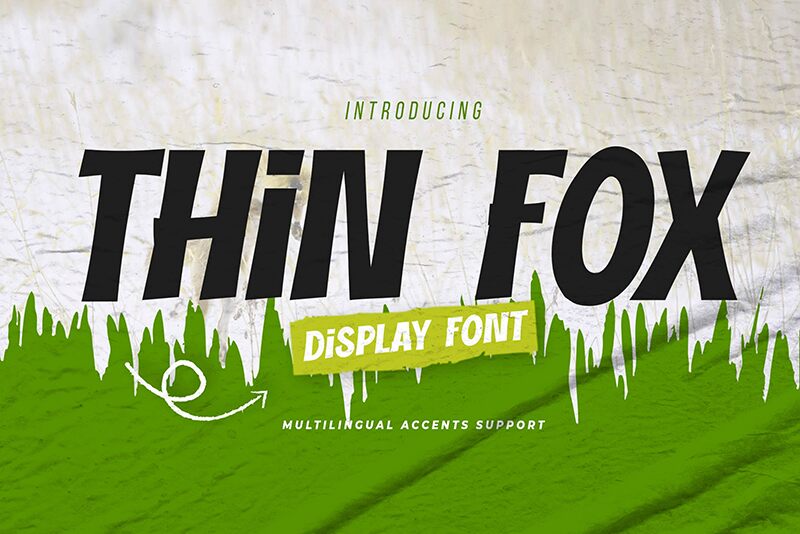
Thin Fox
Thin Fox, a bold and dynamic creation by Gassstype, stands out in the realm of display fonts with its comic style flair. Its condensed width commands attention, making it an excellent choice for headlines that need to make an impact without consuming too much space. The playful yet confident strokes of Thin Fox add a contemporary twist to the classic comic aesthetic, ensuring that your designs resonate with a modern audience.
This font's bold weight ensures legibility and presence, perfect for eye-catching statements in graphical projects or digital media. Whether it's branding materials, poster designs, or animated storytelling, Thin Fox has the versatility to infuse your project with character and readability. Its unique blend of whimsy and boldness makes it an ideal candidate for creative ventures aiming to leave a lasting impression.